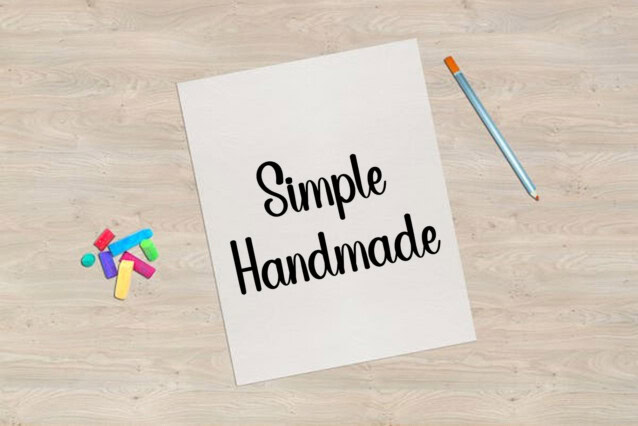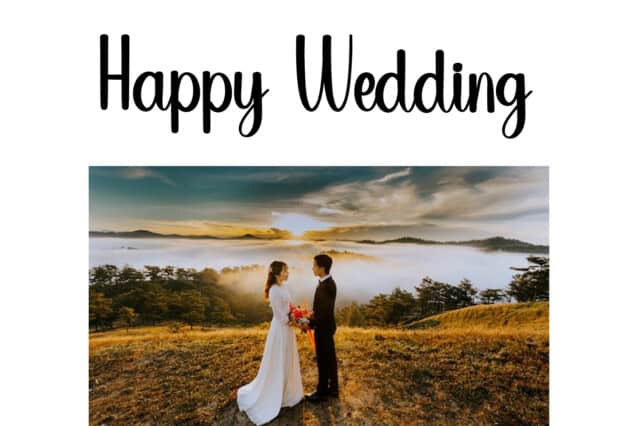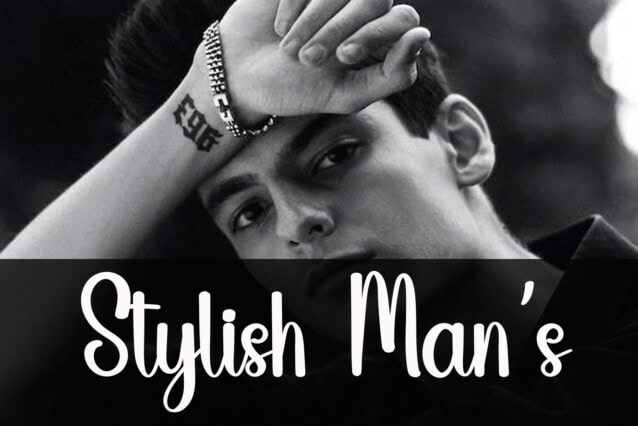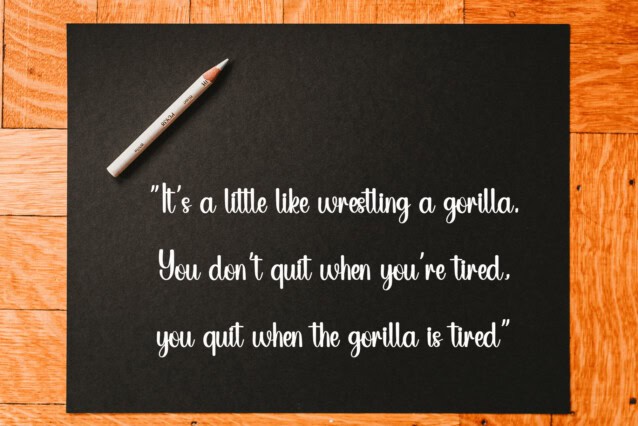
Mountain Winter Script Font
Mountain Winter Script Font is a charming handwritten font exuding simplicity and ease. Its casual strokes and clean lines evoke a sense of authenticity and warmth, making it ideal for personal correspondence, journaling, or adding a down-to-earth vibe to branding materials. Mountain Winter effortlessly captures the essence of handwritten elegance.